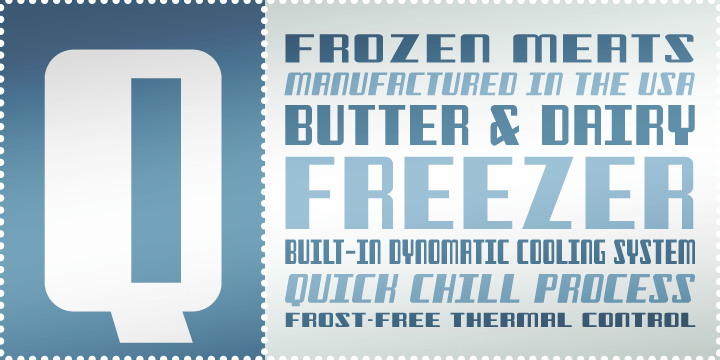
Freezer BTN
Freezer BTN is a vintage display family inspired by the crisp chrome lettering found on classic refrigerator interiors and appliance details. Drawing from that streamlined domestic industrial look, it captures a clean early twentieth-century feel with a cool, polished character. The family is especially well suited for retro packaging, kitchen-themed branding, signage, editorial design, product labels, posters, and projects that call for a neat vintage voice with a subtle mechanical edge. With regular, condensed, and wide widths plus matching obliques, Freezer BTN offers versatile display options that feel tidy, nostalgic, and distinctly period-inspired.